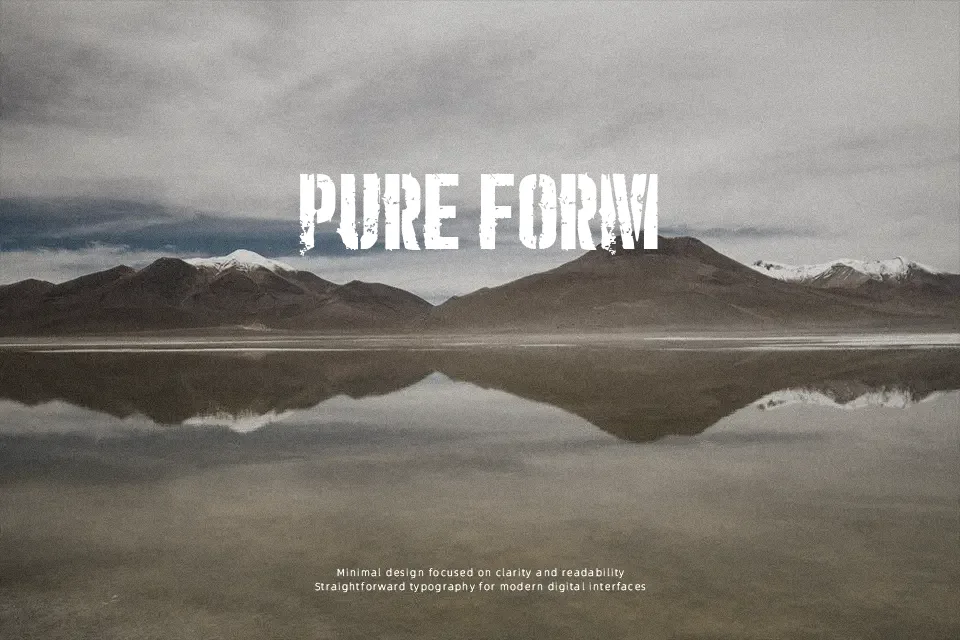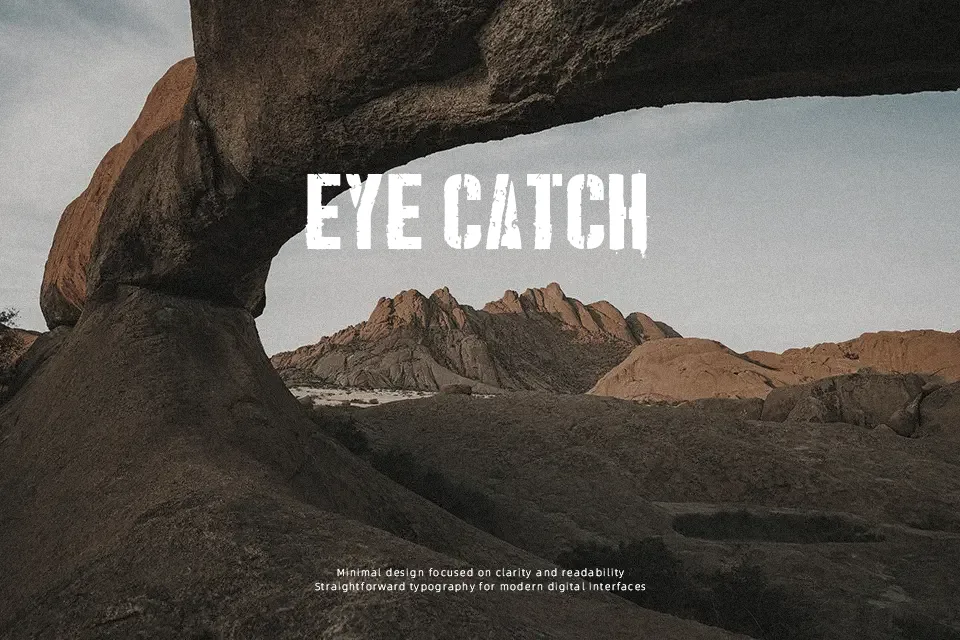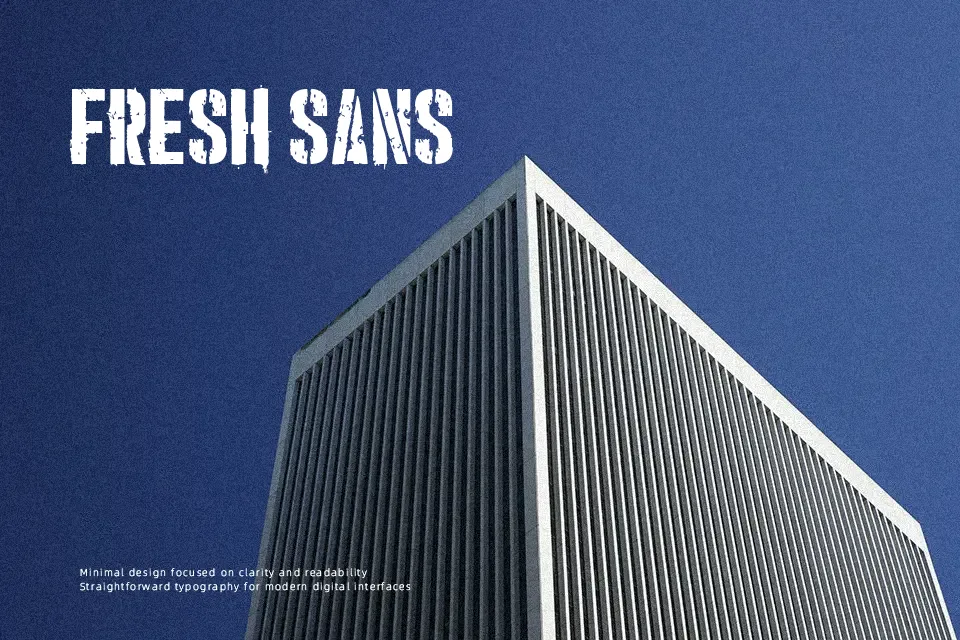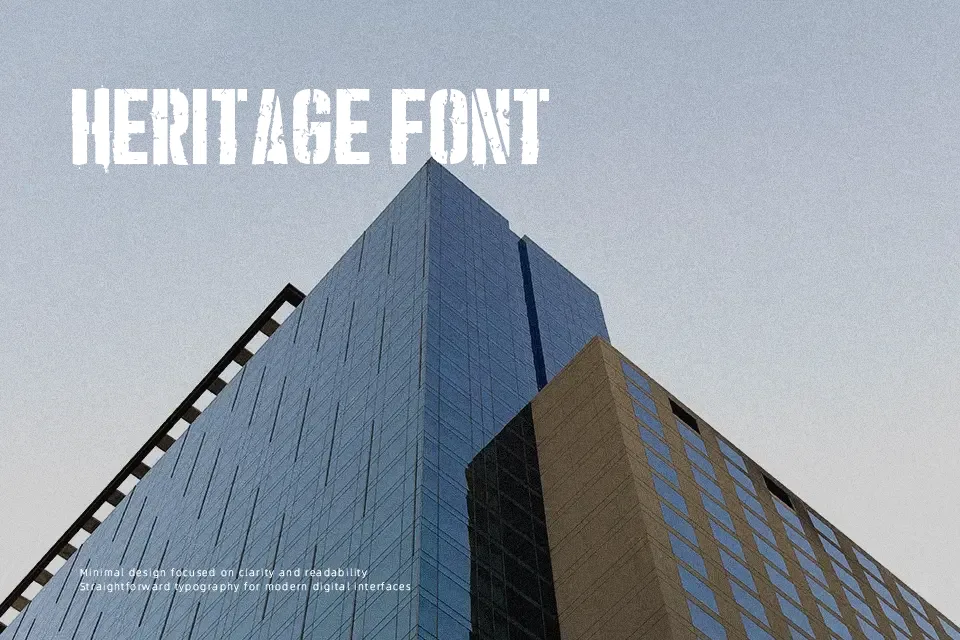
Punishment Font
Punishment performs best when displayed at larger headline sizes, where its heavy, distressed strokes can make a powerful visual statement. The typeface features a rugged stencil structure with tight spacing that brings a gritty, industrial atmosphere to any project. These letterforms are characterized by uneven, weathered edges and thick proportions that command attention in dense layouts. Such rough details excel in military-themed branding, edgy video game interfaces, and high-impact event posters. However, the aggressive texture and pronounced stencil breaks reduce clarity in smaller applications, making the design less suitable for continuous paragraph text or tiny interface labels. Overall, the bold weight maintains strong visibility for raw, unpolished display purposes.
military video game interfaces, high-impact poster headlines, rugged apparel graphics, industrial product packaging
continuous paragraph text, tiny interface labels, formal corporate reports, spreadsheet data
Perfect for branding, gaming, and headline, with a bold and display style.